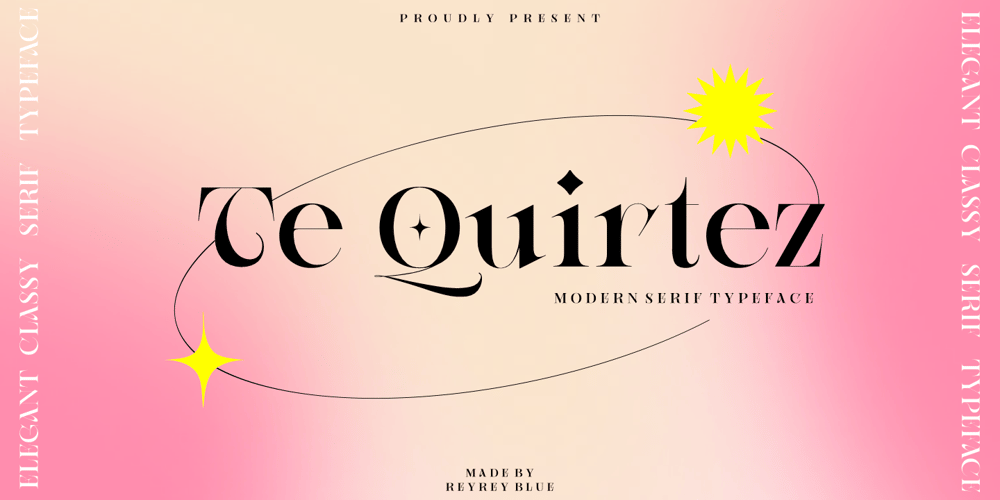
Te Quirtez
Te Quirtez font
Te Quirtez Font Family was designed by Risca Anitawati and published by Reyrey Blue Std. Te Quirtez contains 1 styles and family package options. Te Quirtez is an elegant and classy serif typeface with strong character. Te Quirtez comes with some alternates and ligatures, so you can combine it to make a perfect typography design. It’s perfect for branding, logo, packaging, header, title, t-shirt design, poster, band, music, album, and more.Features :· All Uppercase and Lowercase· Number & Symbol· Supported Languages· Alternates and Ligatures· PUA Encoded